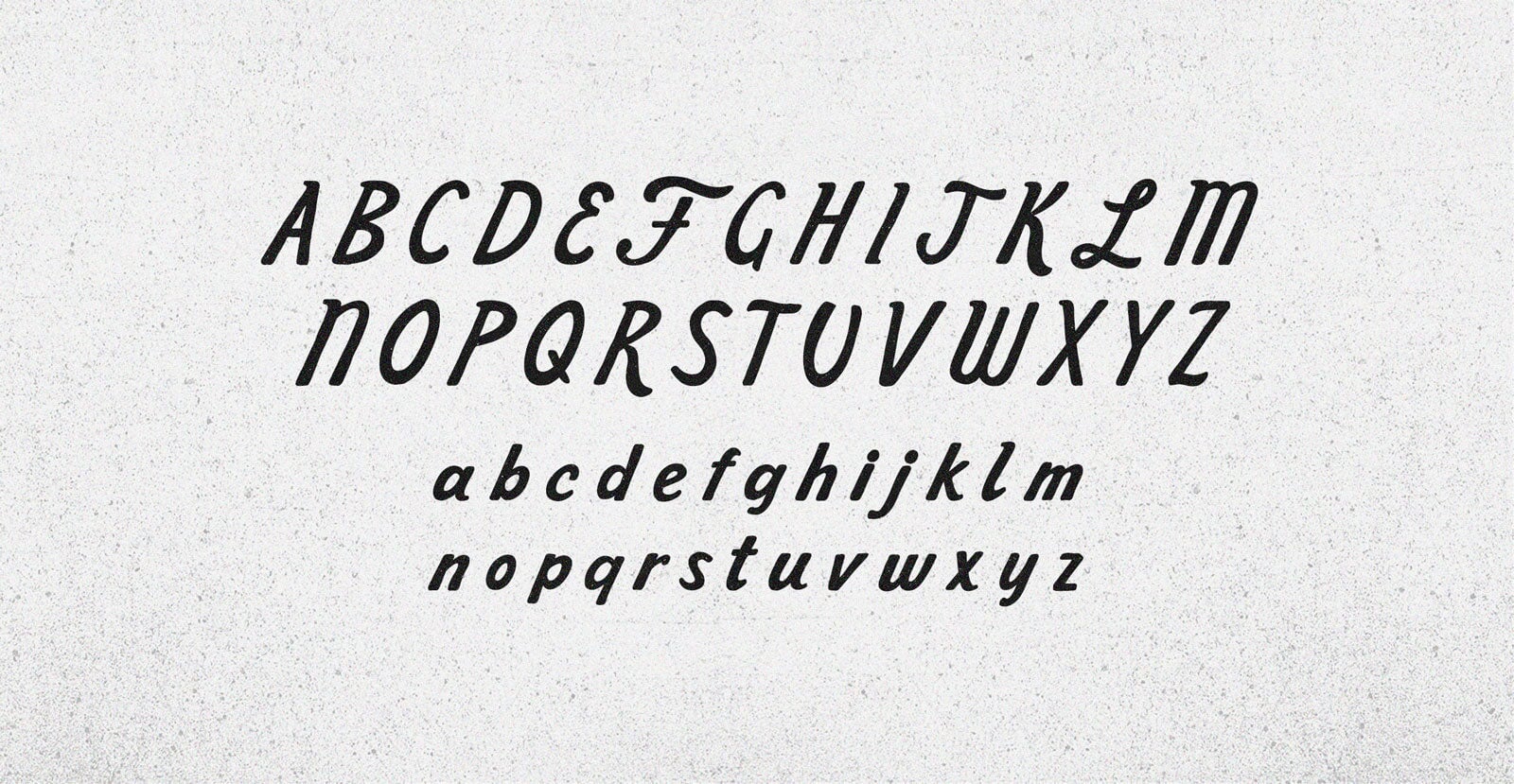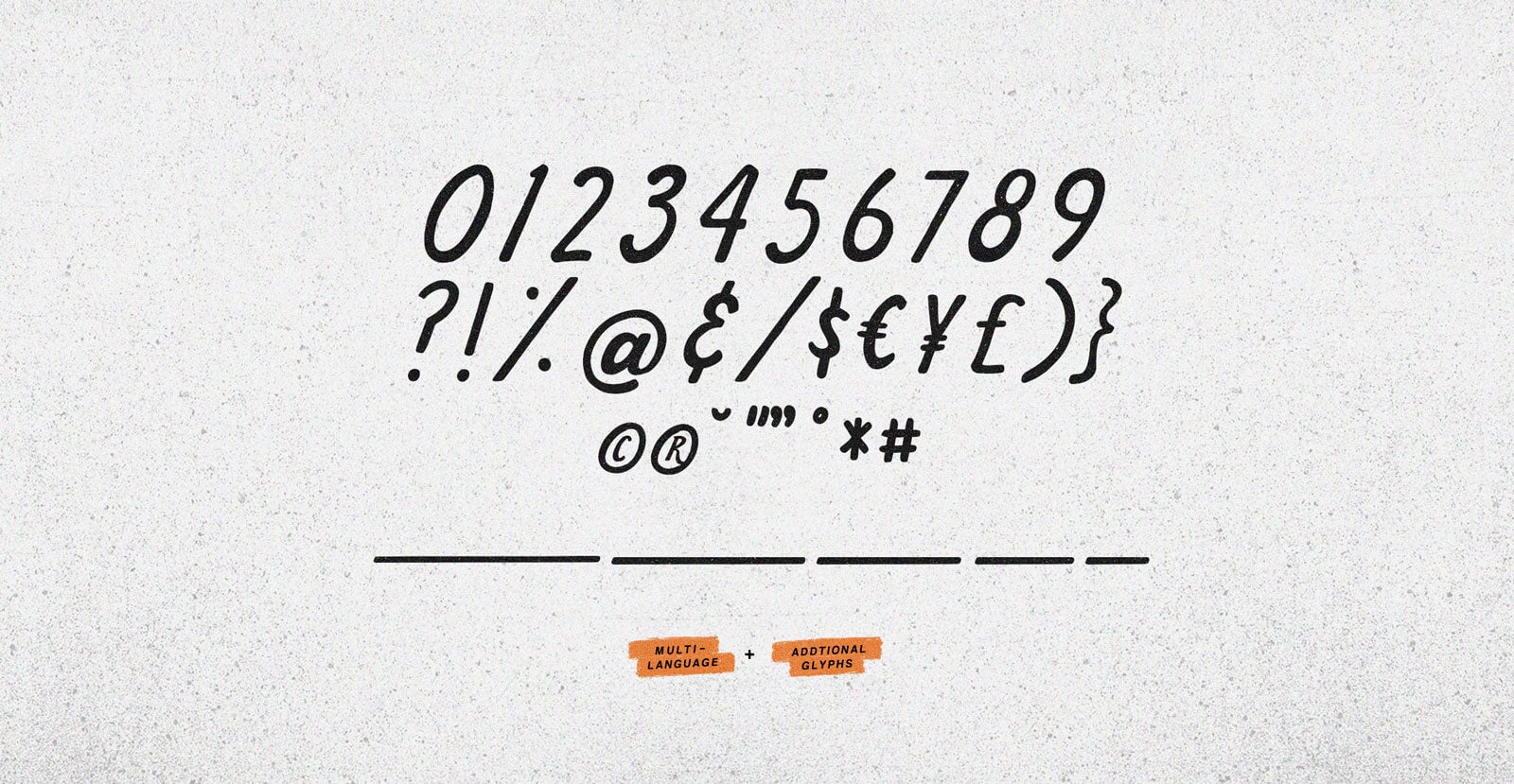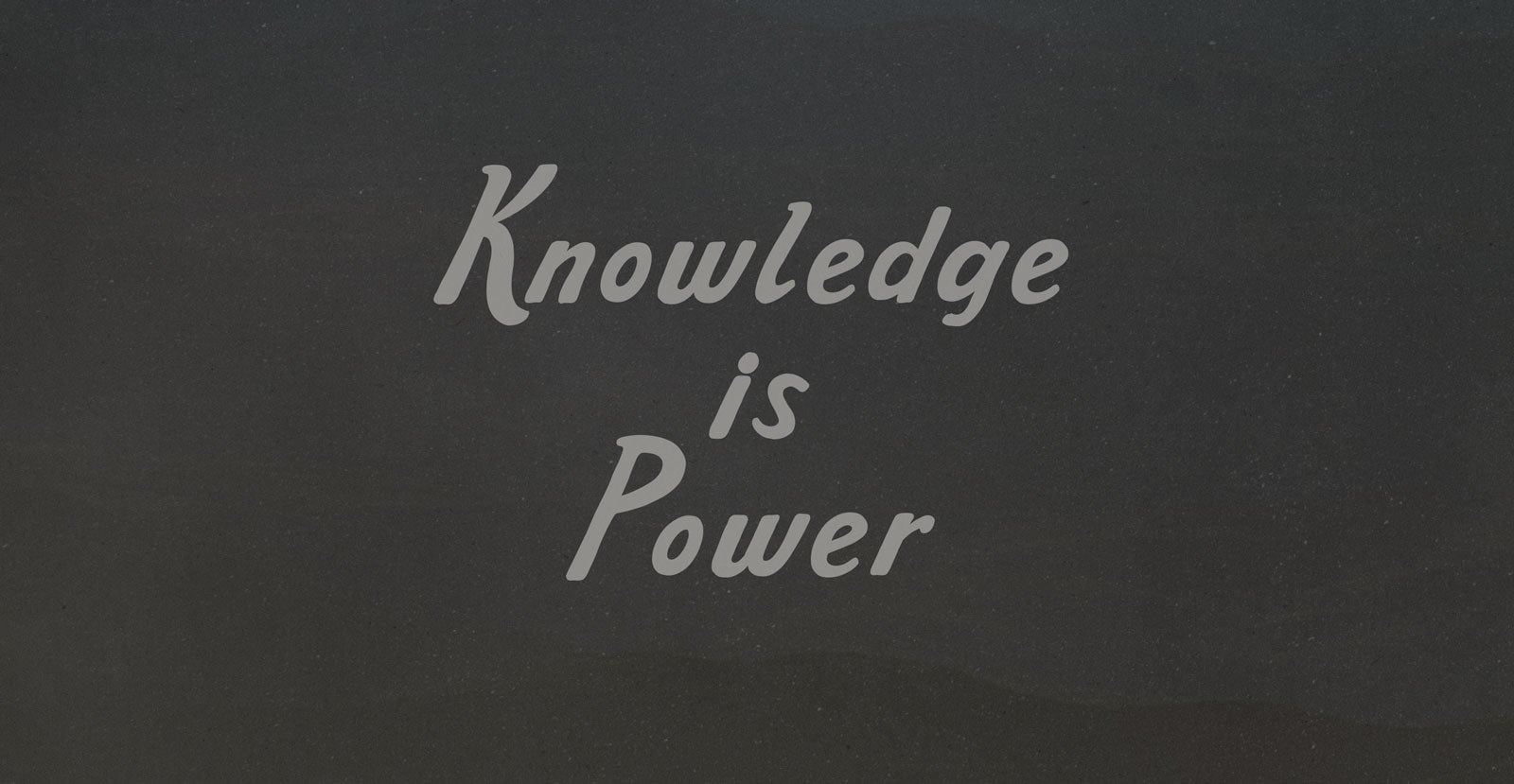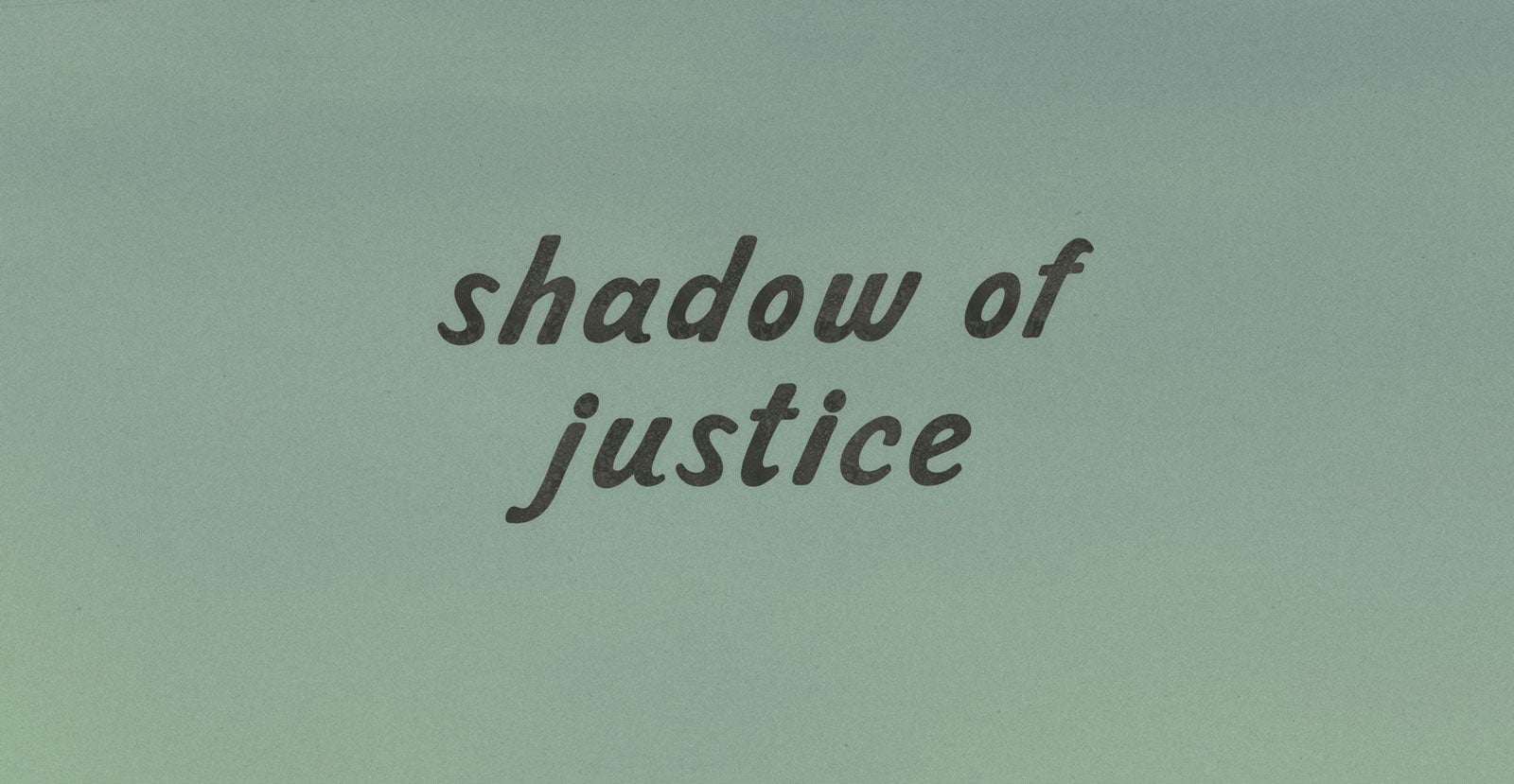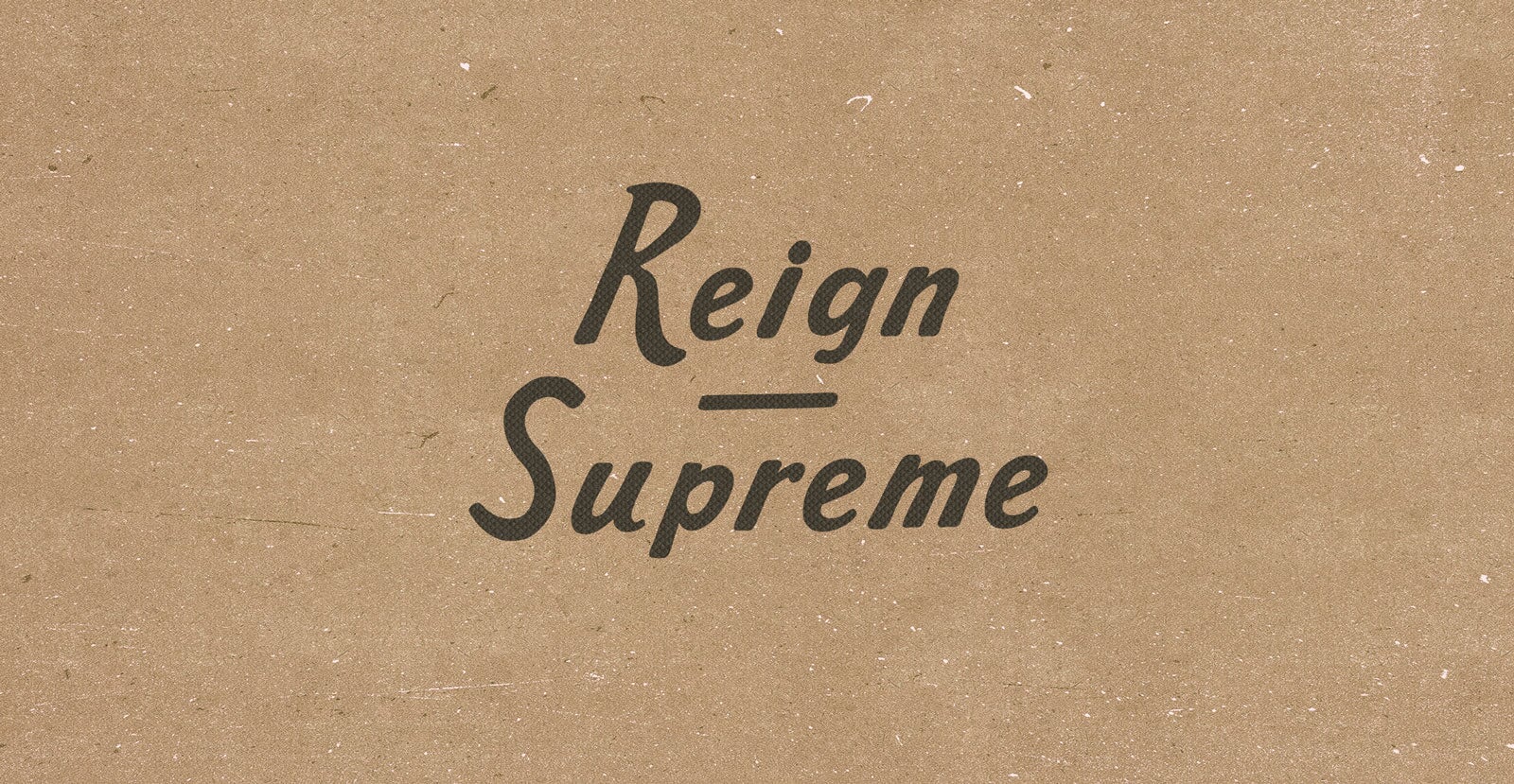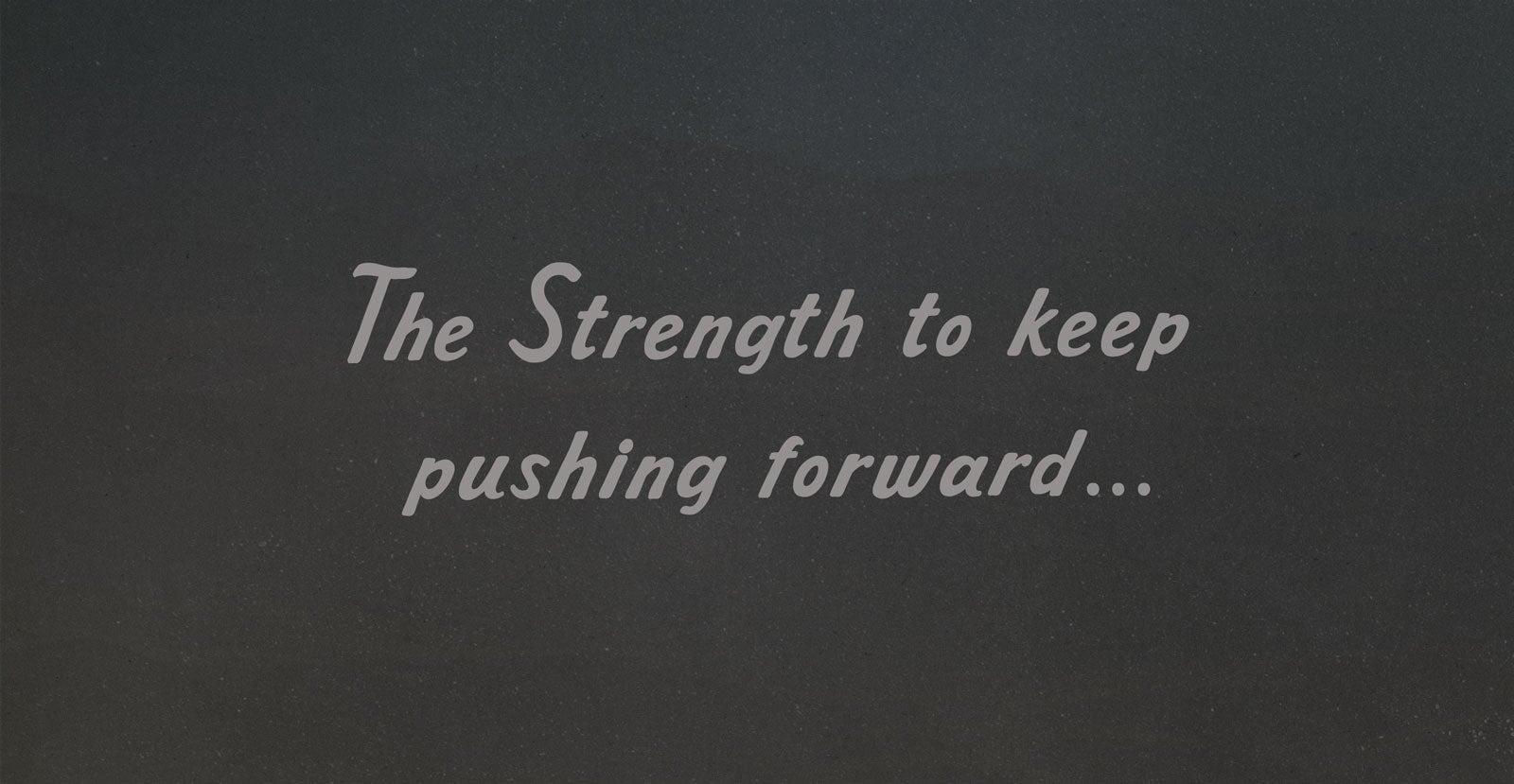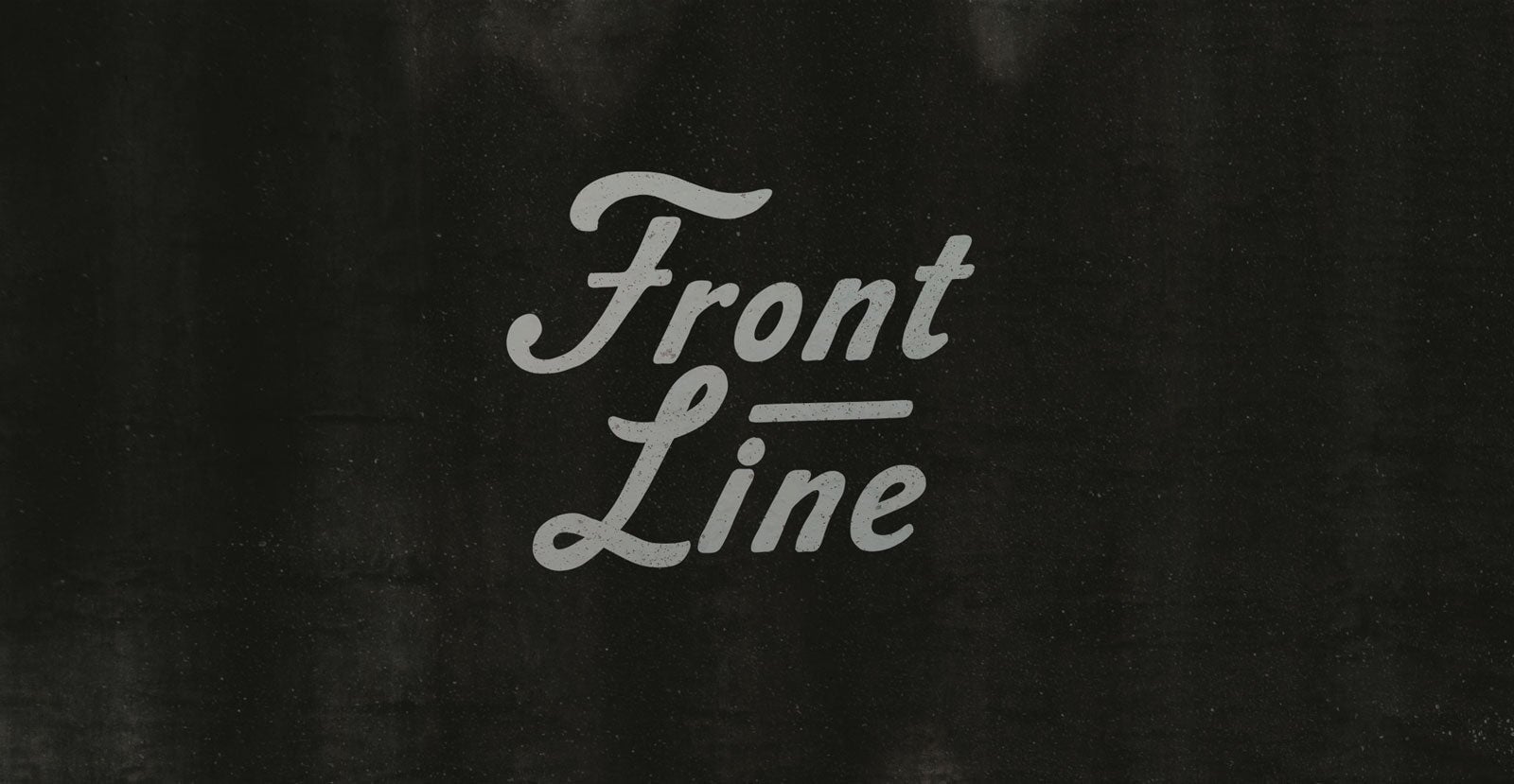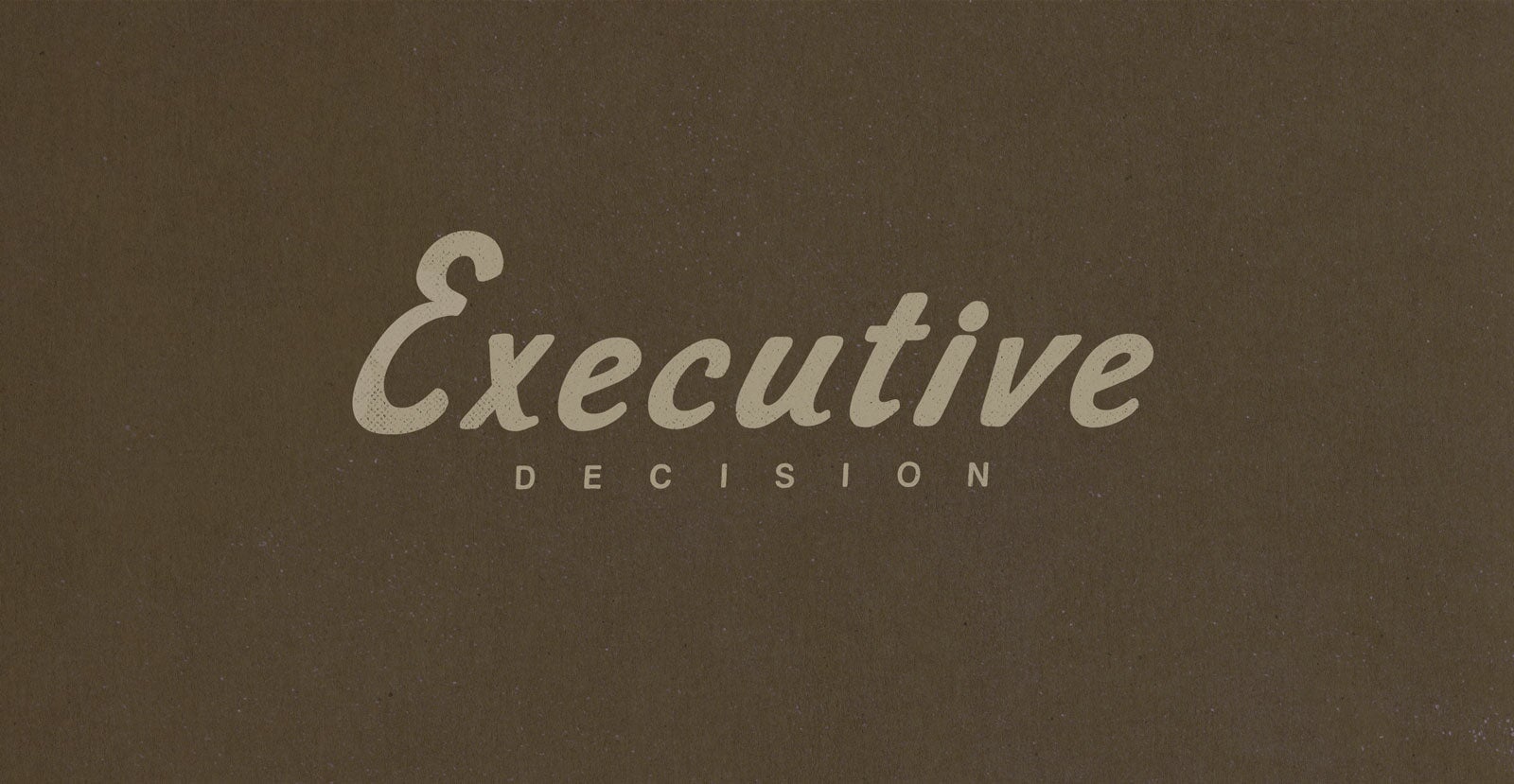
Front Line
Handwritten Vintage Script Font
The edge where everything holds its breath. A place that feels both exposed and unseen, where silence is heavy and every movement carries weight. You don’t know if you’re standing guard, or if something is waiting for you to cross.